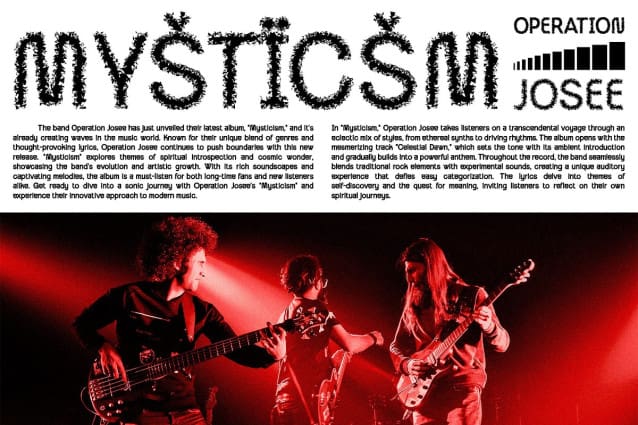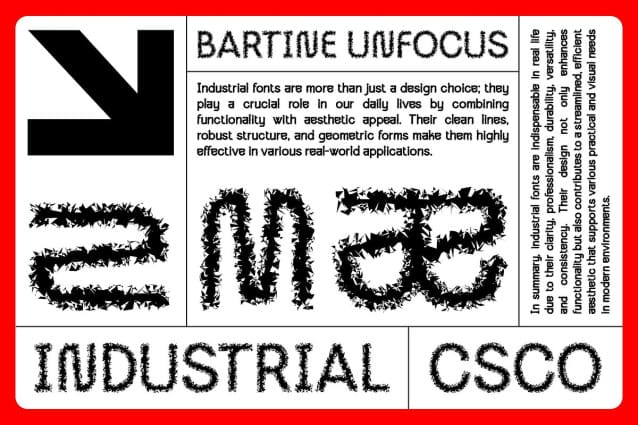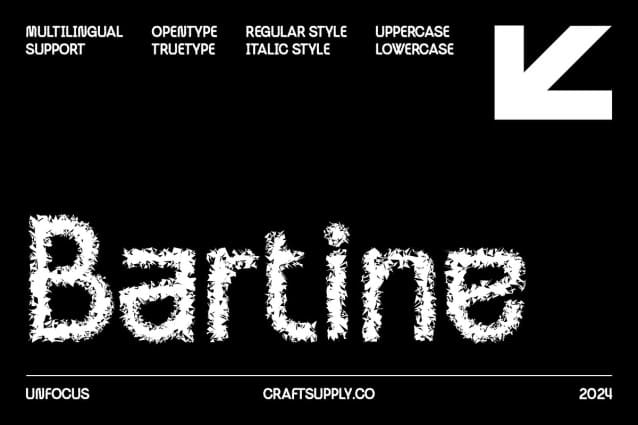
Bartine Unfocus Font
Bartine Unfocus Font is a modern sans-serif font characterized by its industrial design elements, emphasizing innovation and technological advancement. Its strong lines and clean shapes project a sense of strength and durability, reflecting quality and reliability in contemporary design.
Unfocus Effect for Artistic Dimension The unique unfocus effect adds an artistic and intriguing touch to Bartine Unfocus, introducing a layer of visual dimension that sets it apart from other sans-serif fonts. This effect enhances the font’s futuristic aspects, providing a distinctive appearance that blends well with the industrial design elements.
Ideal for Technological and Strength-Focused Designs Perfect for projects that require a focus on technology and strength, Bartine Unfocus is ideal for branding, digital interfaces, and promotional materials. Its combination of industrial design and unfocus effect makes it an excellent choice for designs that aim to convey a strong, innovative, and forward-thinking image.
Sophisticated and Unique Bartine Unfocus stands out with its blend of industrial robustness and artistic flair. Whether used in high-tech branding or cutting-edge design projects, this font offers a unique and sophisticated option that highlights strength, reliability, and modernity.